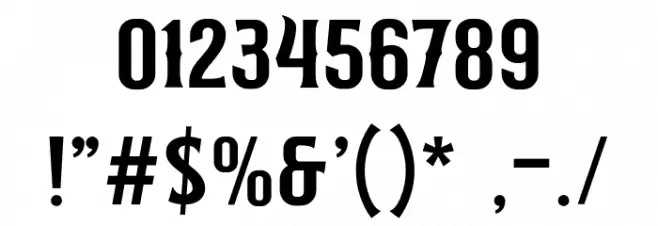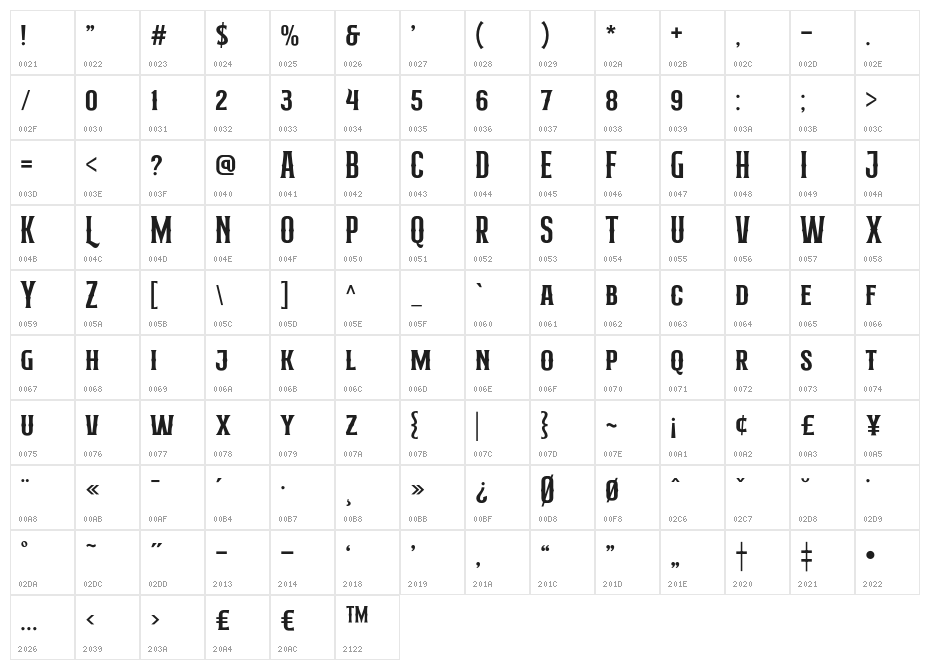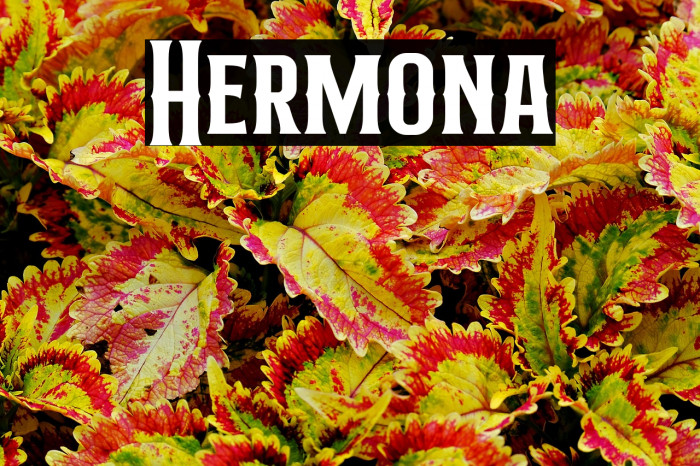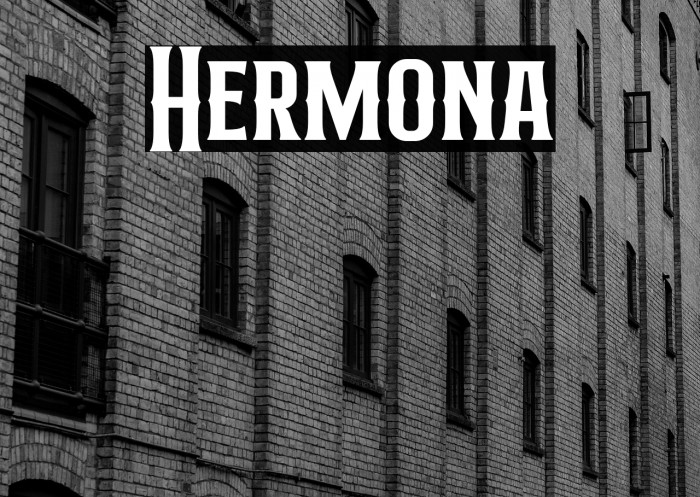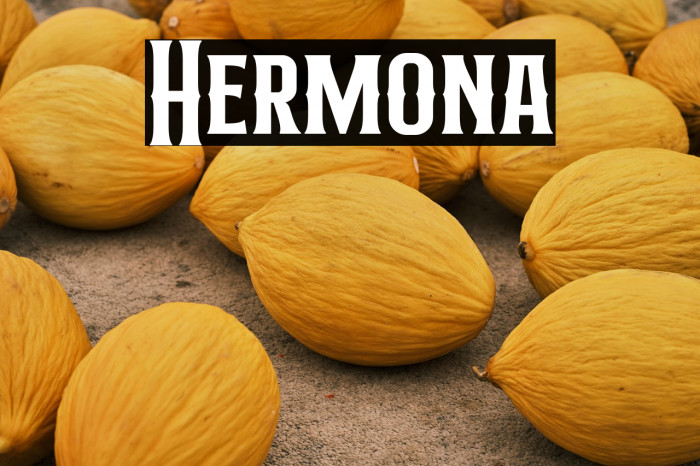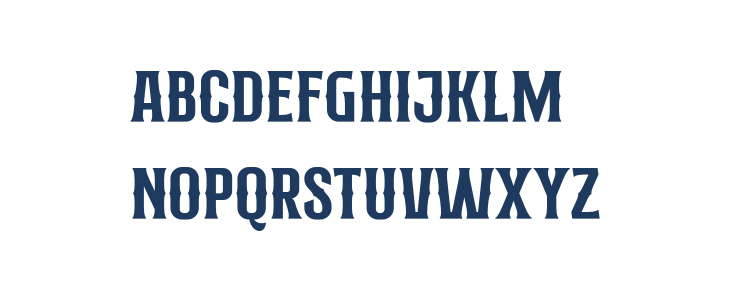
Hermona Font
Hermona Description
This font features a bold and striking design with a strong presence, characterized by its thick, block-like letters and sharp edges. The uppercase letters are particularly prominent, with a slight curvature that adds a unique flair to the otherwise rigid structure. The numbers and special characters maintain the same boldness, ensuring consistency across all elements. Its distinct style makes it ideal for attention-grabbing headlines and titles. The font's overall appearance is reminiscent of vintage or retro styles, yet it maintains a modern edge with its clean lines and uniformity.
| Proposed Projects | Ideal for use in branding, posters, and signage where a bold statement is needed. |